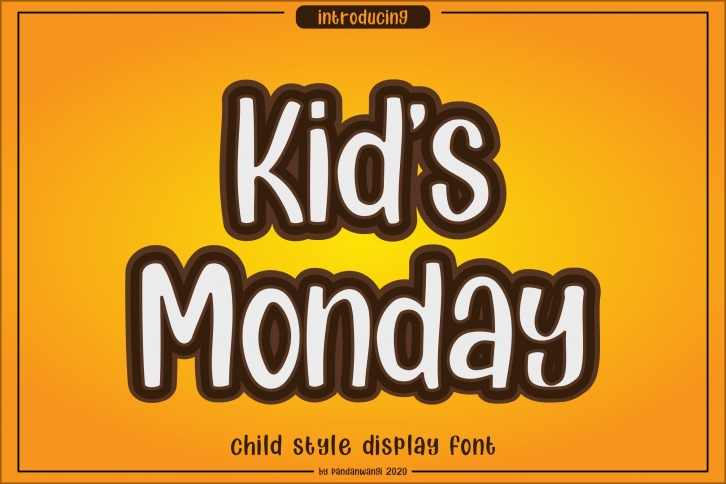
Kids Monday is a beautiful font that was designed by Pandanwangi. It's a great choice for designers and creatives who need such a font. It was released on September 22, 2020 and the file size is 19.61 MB. Kids Monday may give a more youthful, expressive and casual look to your project. It is a very beautiful, refined, elegant, and high-quality font.